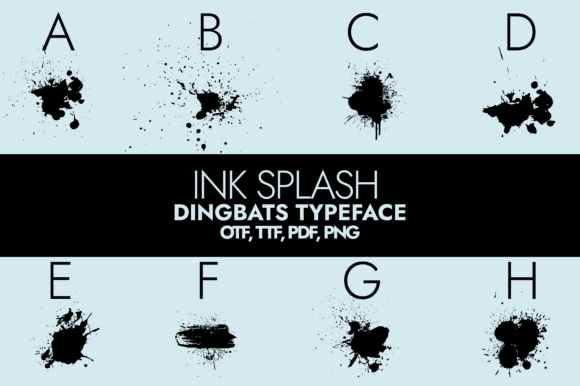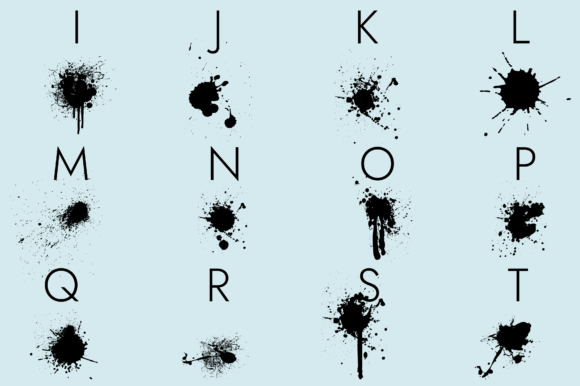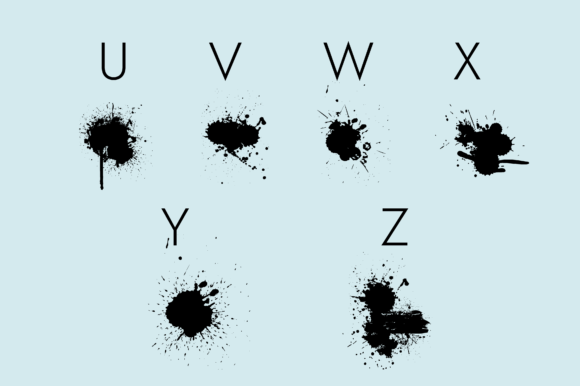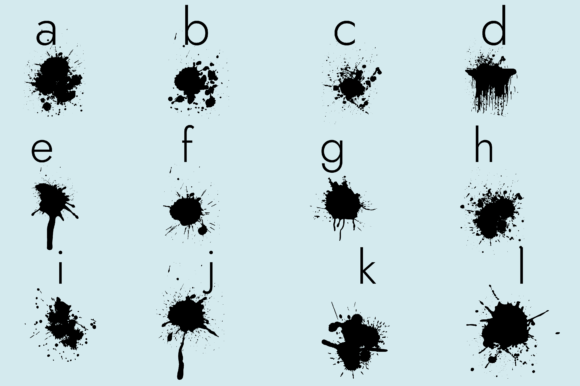
About Ink Splash Font
Ink Splash is an exciting and versatile dingbats font that adds a dynamic and artistic touch to your designs. With its unique collection of ink splashes and splatters, this font brings a sense of energy and creativity to any project. Whether you’re working on digital designs, print materials, or any other creative endeavor, Ink Splash is a valuable asset that can elevate your work to new heights.
The splashes and splatters in Ink Splash are meticulously designed to capture the organic and expressive nature of ink. Each glyph represents a distinct splash, varying in shape, size, and intensity. This diversity allows you to choose the perfect ink element that complements your design and conveys the desired mood or theme.
One of the key advantages of Ink Splash is its versatility. This font can be applied to a wide range of topics and styles, making it suitable for various projects. Whether you’re designing a bold and edgy poster, creating a modern logo, or adding a touch of spontaneity to a digital illustration, Ink Splash offers endless possibilities.
The beauty of Ink Splash lies in its ability to add visual interest and create a sense of movement in your designs. The ink splatters can be used as standalone elements or combined with other typography or graphics to create captivating compositions. They can be placed strategically to draw attention, add texture, or create an eye-catching focal point.
Additionally, Ink Splash allows you to experiment and explore different design techniques. You can layer multiple splatters, adjust their opacity, or even apply various blending modes to achieve unique effects. This flexibility encourages creativity and empowers you to create designs that are truly one-of-a-kind.
Moreover, Ink Splash can evoke a wide range of emotions and moods depending on how it’s incorporated into your designs. It can convey a sense of spontaneity, freedom, and artistic expression, or it can be used to create a dramatic or grungy atmosphere. The versatility of this font ensures that it can adapt to your specific design needs and goals.
Whether you’re a professional designer, an aspiring artist, or simply someone looking to add a touch of creativity to their projects, Ink Splash is a valuable addition to your font library. Its ability to enhance any creation and its potential to inspire and engage your audience make it a go-to font for unleashing your artistic vision.
So, embrace the versatility and excitement of Ink Splash and let it take your designs to new levels. Whether you’re working on digital graphics, print materials, or any other creative endeavor, this font is a valuable tool that has the potential to transform your creations into captivating works of art.